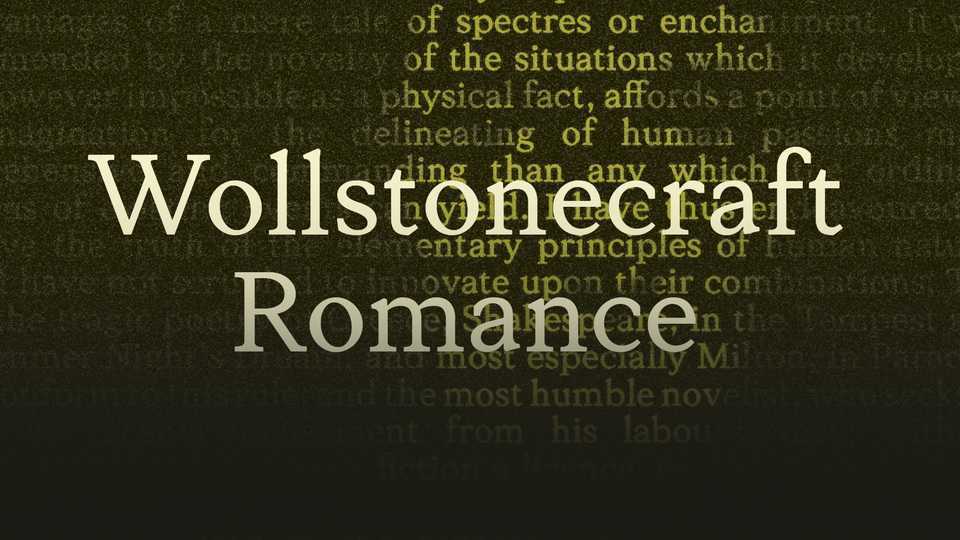
Download Wollstonecraft Romance font, a typeface that was drawn as a sturdy, grounded text serif with semi-modular components that pays homage to the creation of Frankenstein’s monster.
Designer: Anmol Govinda Rao